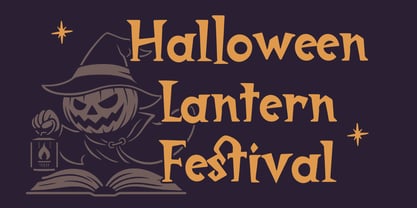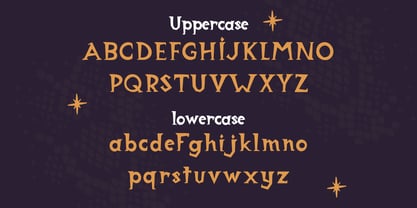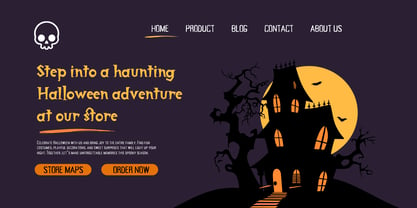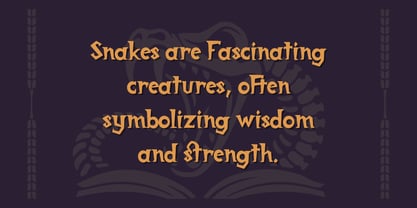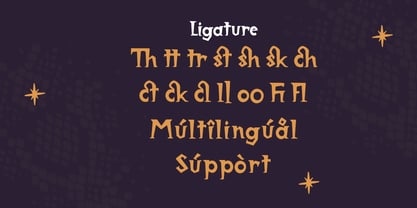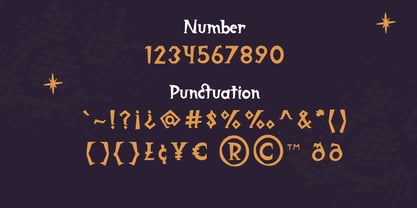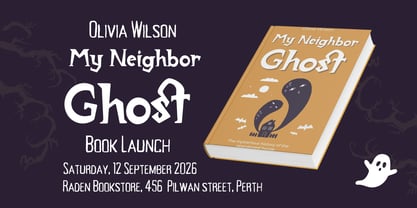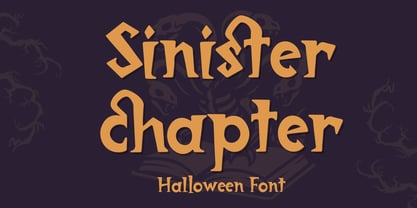
Sinister Chapter
Unleash a dark and playful vibe with Sinister Chapter – Halloween Font. Crafted with eerie curves and sharp edges, this display typeface captures the spirit of Halloween with a mix of mystery and fun. Perfect for spooky posters, party invitations, horror quotes, or seasonal branding.
Sinister Chapter combines readability with unique decorative details. The font includes uppercase, lowercase, numbers, punctuation, ligatures and multilingual support, making it versatile for both creative and professional Halloween projects.
Perfect for:
Halloween party invitations and flyers, Horror movie or game title designs, Spooky quotes and social media posts, Trick-or-treat posters and event promos, Children’s Halloween activity sheets, Seasonal branding and marketing materials, Decorative headlines for haunted events
Features :
- Sinister Chapter
- Ligatures
- Multilingual, US Roman, Latin 1 Support